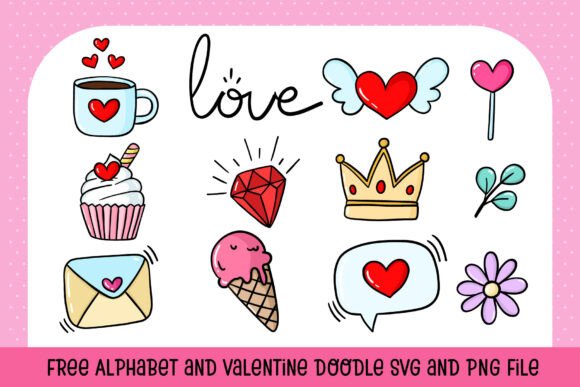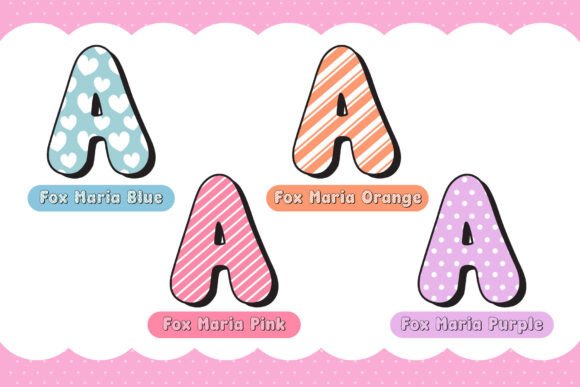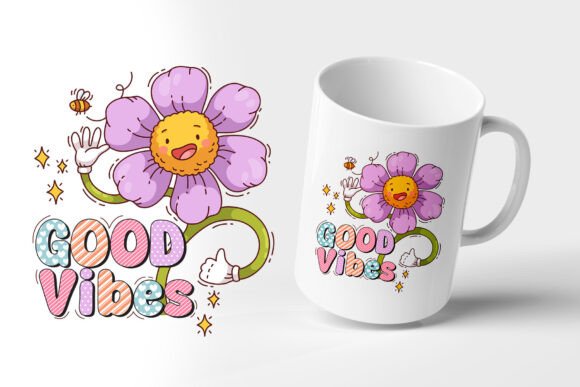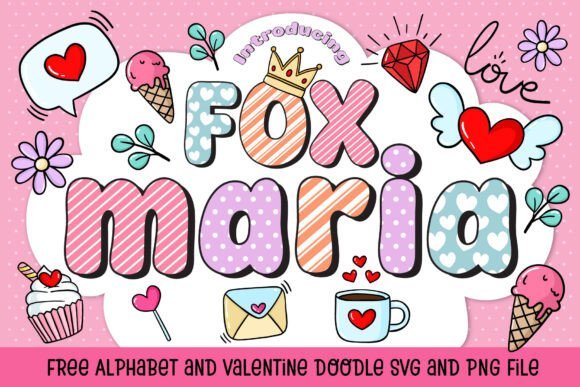
Introduction to Fox Maria Font
Fox Maria is a playful and charming color font that brings your designs to life.
Perfect for creative projects, this font offers four unique variations, each with its own vibrant personality: – Fox Maria Blue: A refreshing blue theme adorned with cute heart patterns, perfect for cheerful and romantic designs – Fox Maria Orange: A bright orange style with dynamic diagonal stripes, adding energy and warmth to any project.
Key Features of Fox Maria Font
Why Choose Fox Maria Font?
Fox Maria Font offers exceptional quality and versatility, making it a valuable addition to your design toolkit. Whether you’re creating for personal projects or commercial use, Fox Maria Font delivers professional results.